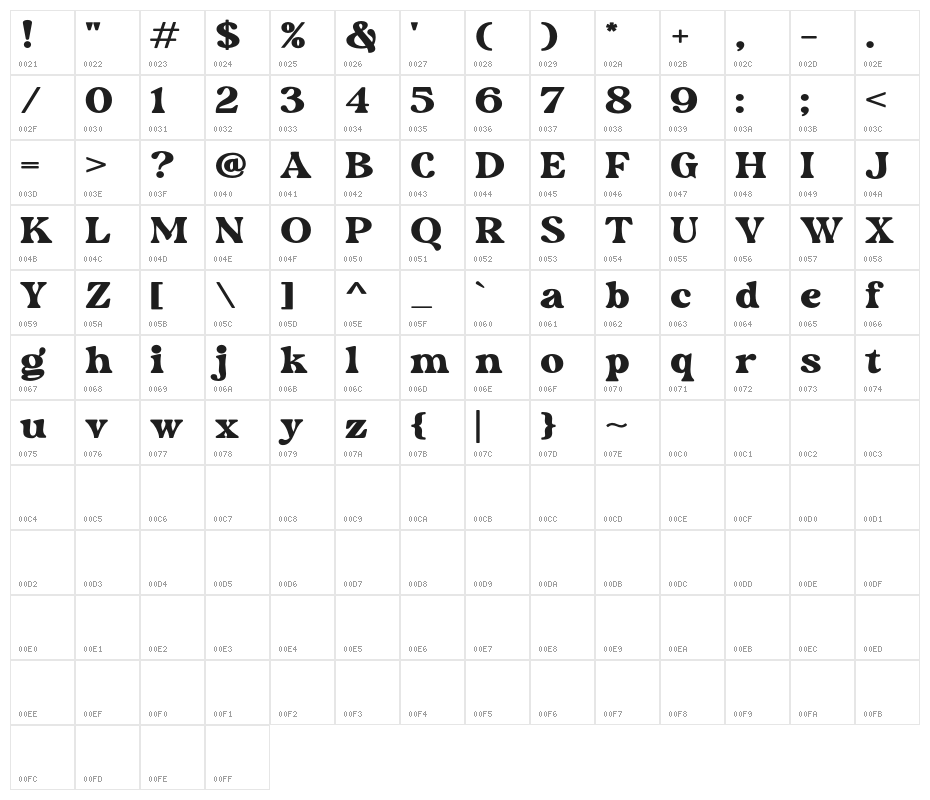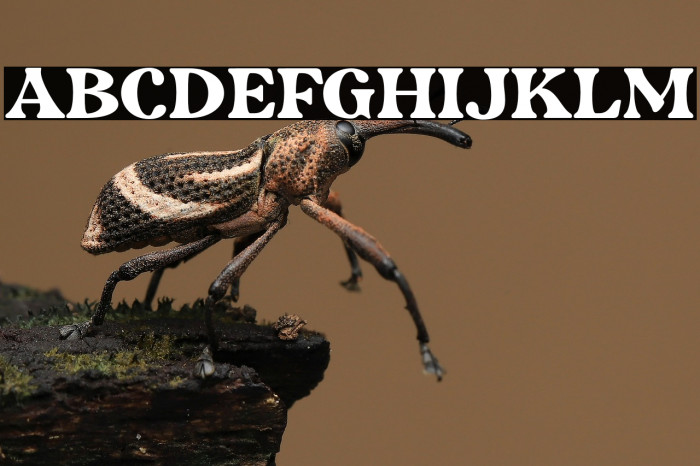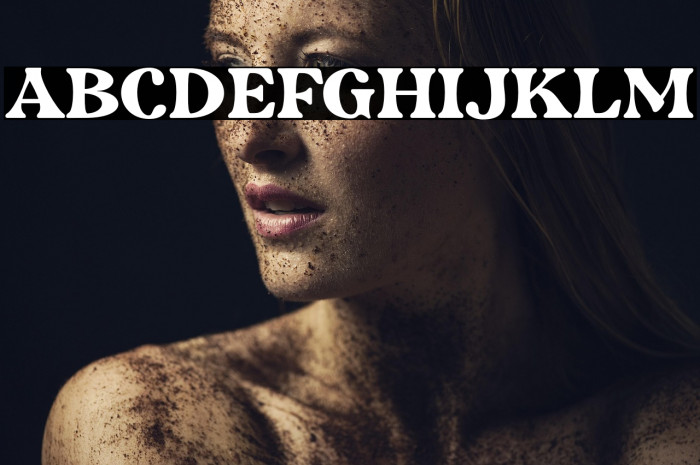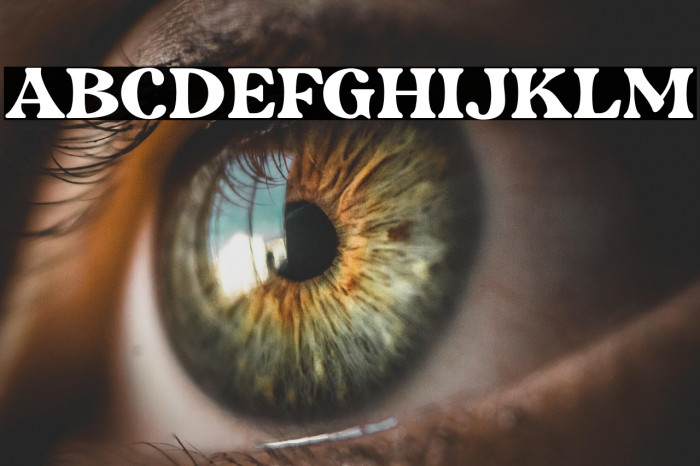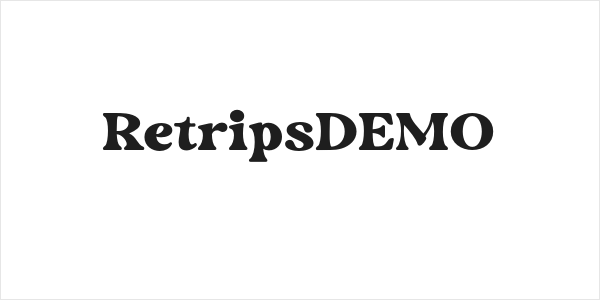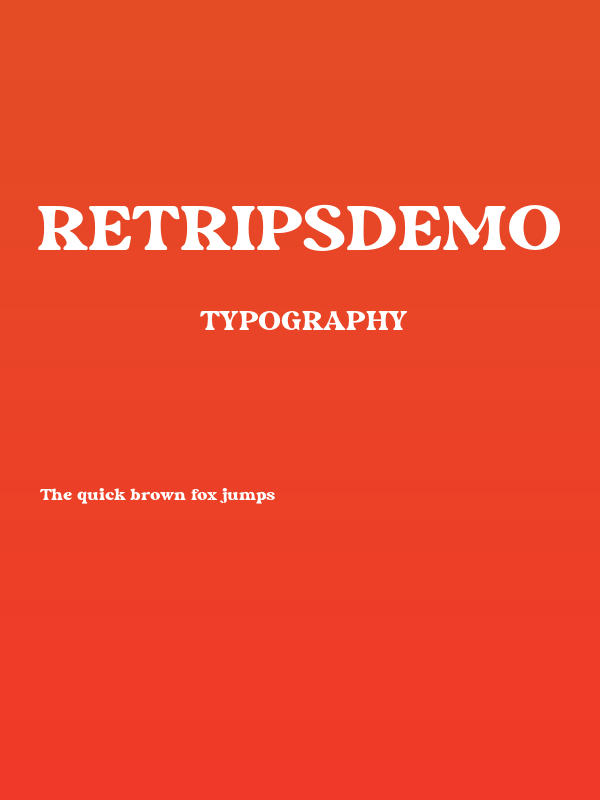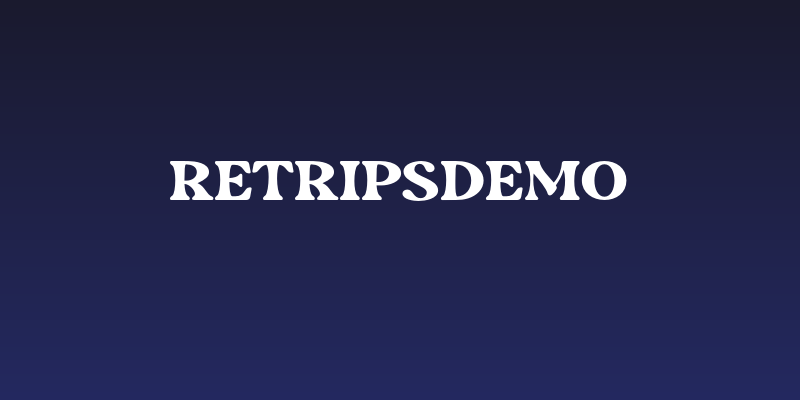
RetripsDEMO Font
RetripsDEMO Description
This font features bold, dramatic serifs with a strong presence, making it ideal for impactful headlines and titles. The uppercase letters are robust and commanding, while the lowercase letters maintain a consistent weight, offering a harmonious balance. The numerals are equally bold, ensuring they stand out in any context. Special characters are designed with the same attention to detail, providing a cohesive look across all glyphs. The overall style is reminiscent of vintage typefaces, yet it maintains a modern edge, making it versatile for various design projects.
| Overall Style | Vintage, Modern |
| Proposed Projects | Ideal for branding, poster design, book covers, and any project requiring a strong typographic presence. |